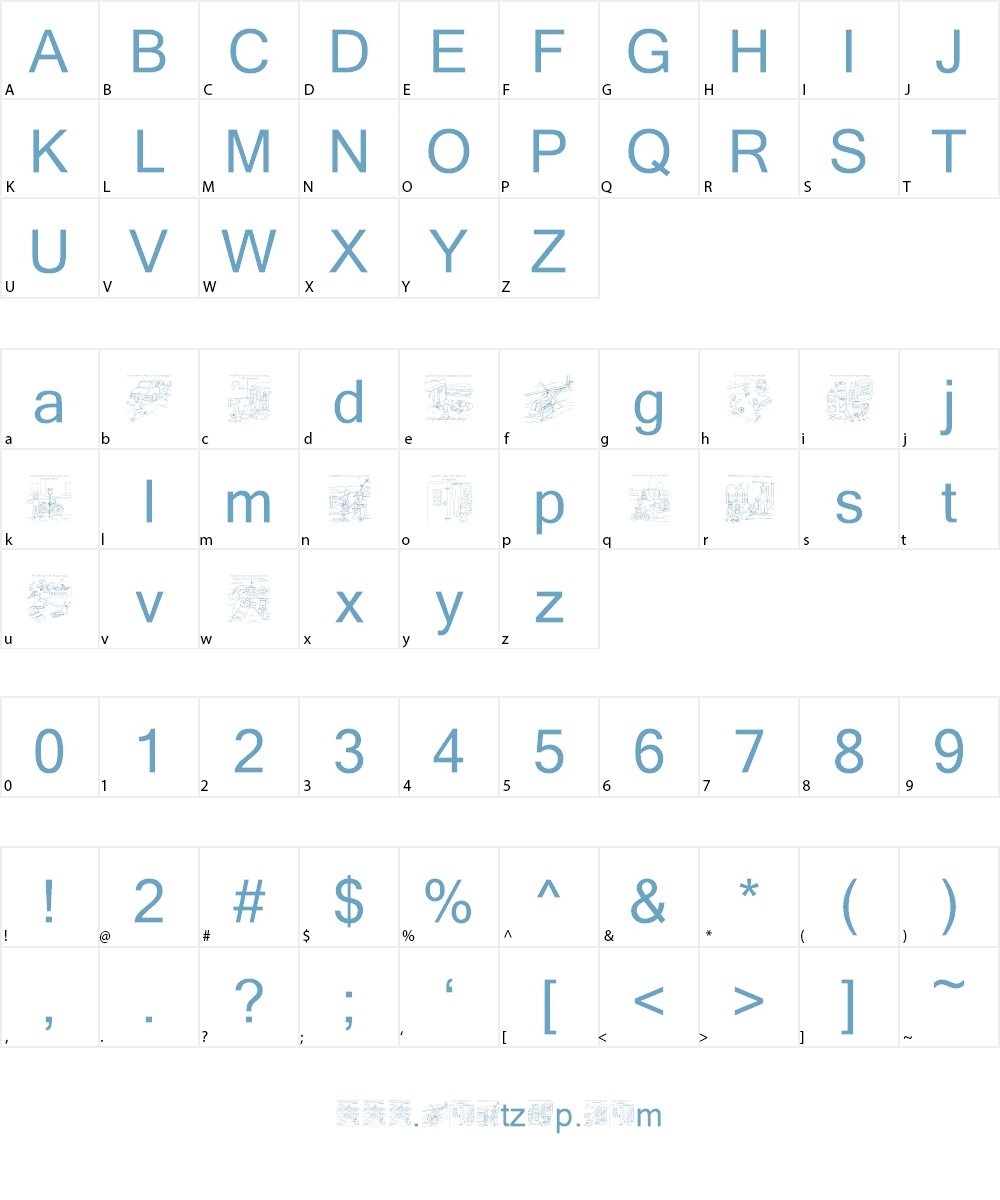
Something that is very close to my heart, is the safety of our children. Here in South Africa that is especially relevant. This font is intended as pictures for the little ones to colour, to make them more aware of their personal safet